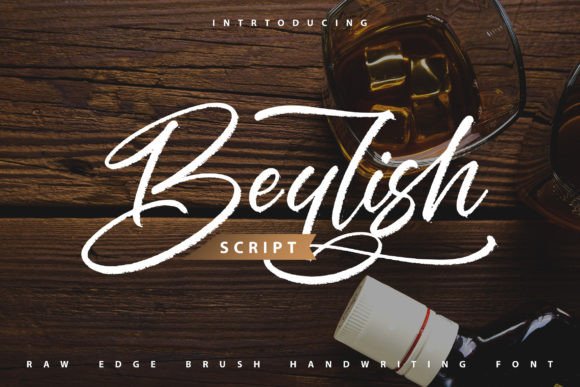
Step into the world of penmanship perfection with Beylish Font, the ultimate script font that will bring an aura of elegance and sophistication to your creative pursuits. This modern, flowing masterpiece, crafted by the talented Vunira, possesses a timeless charm that will elevate your designs to new heights.
As a script font, Beylish exudes a natural, handwritten aesthetic that adds a touch of personal warmth and authenticity to your projects. Its meticulously crafted characters, each possessing a unique charm, harmonize beautifully to create a visually captivating experience.
Whether you're a seasoned designer or just starting, Beylish Font is incredibly versatile and user-friendly. Effortlessly transform your ideas into stunning visuals with this font's inherent ability to adapt seamlessly to a wide range of creative applications.
Discover the endless possibilities that await with Beylish Font. Its modern calligraphy style adds a touch of refinement to wedding invitations, branding materials, and social media graphics. Create eye-catching headlines, captivating logos, and unforgettable quotes that leave a lasting impression.
Unleash your creativity and embark on a journey of self-expression with Beylish Font. Its versatility extends to various projects, including posters, flyers, greeting cards, and digital artwork. The font's elegant strokes will elevate your designs, evoking emotions and captivating your audience.